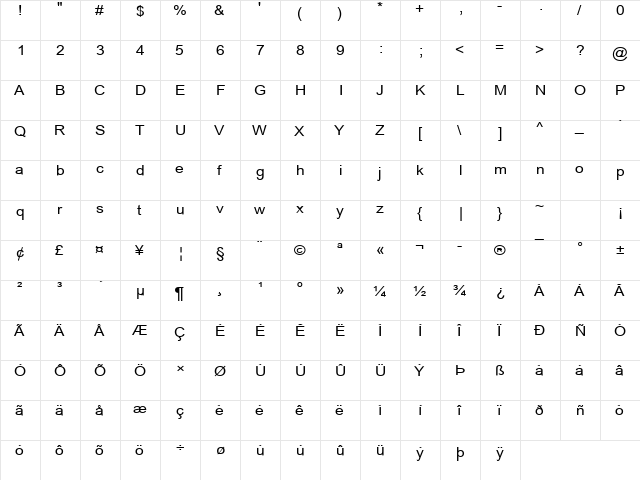
TWA LATIN1 H Regular
TWA LATIN1 H takes a measured approach to typography — its balanced proportions and neutral character make it a reliable workhorse for both digital and print work.